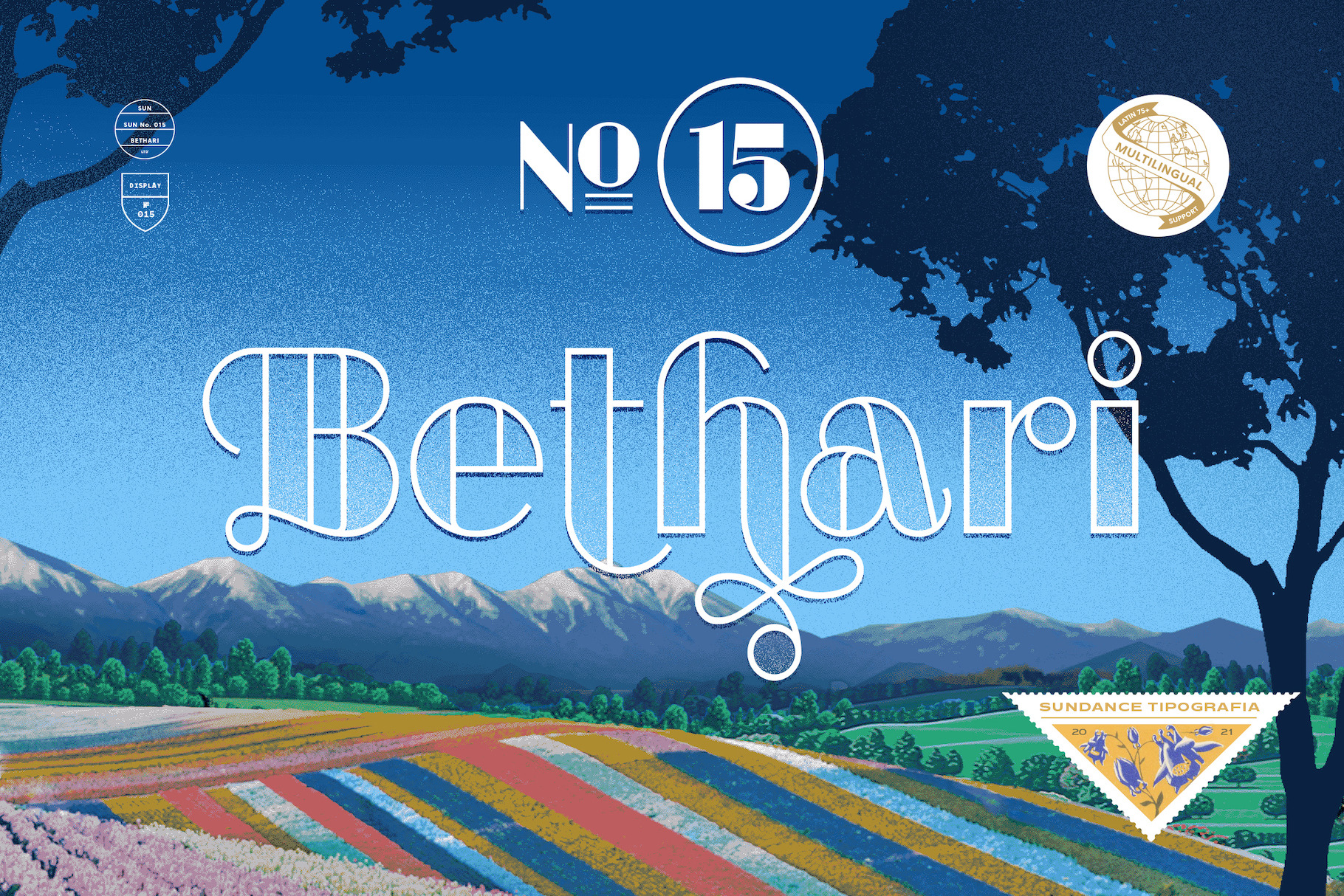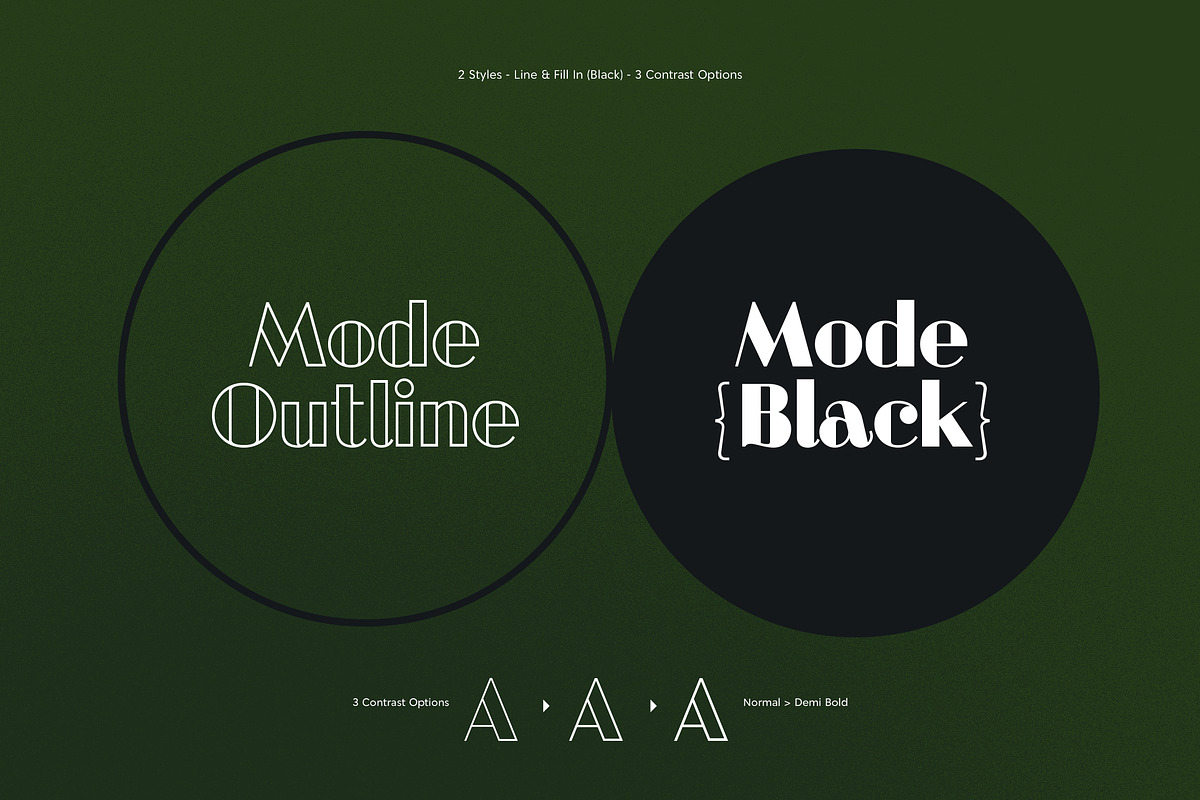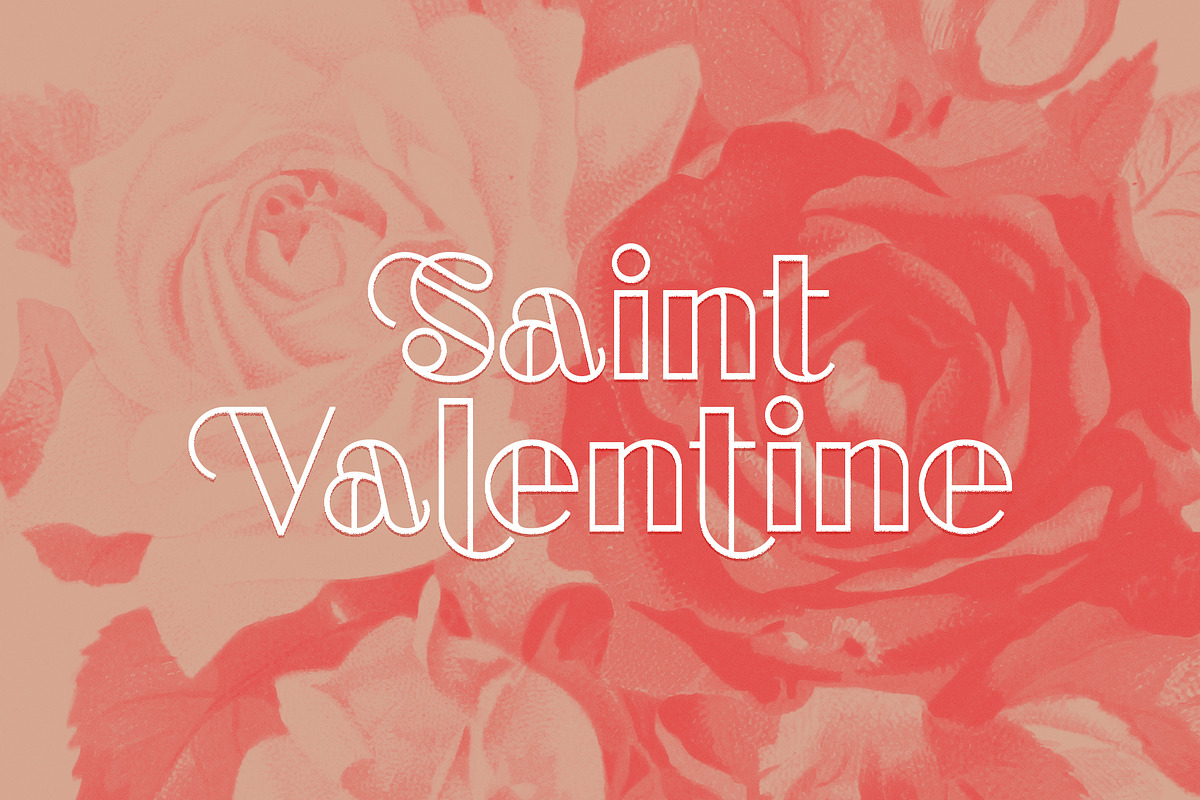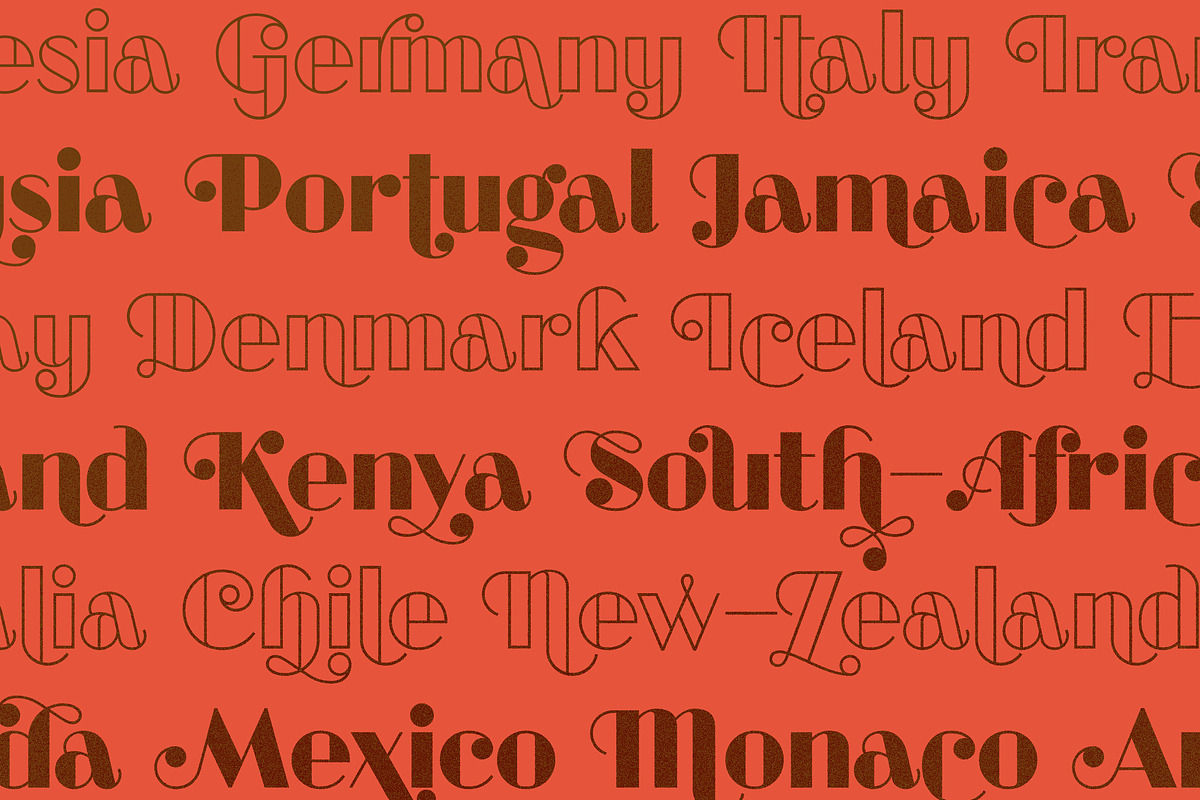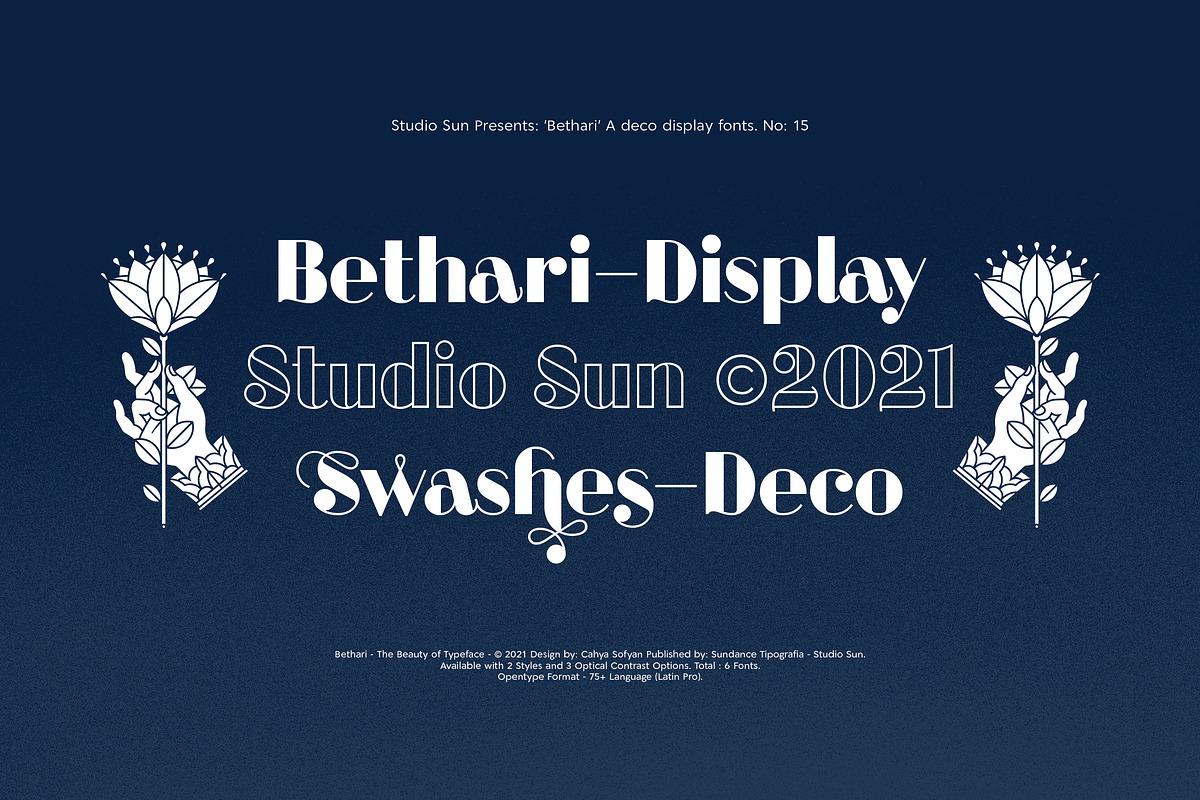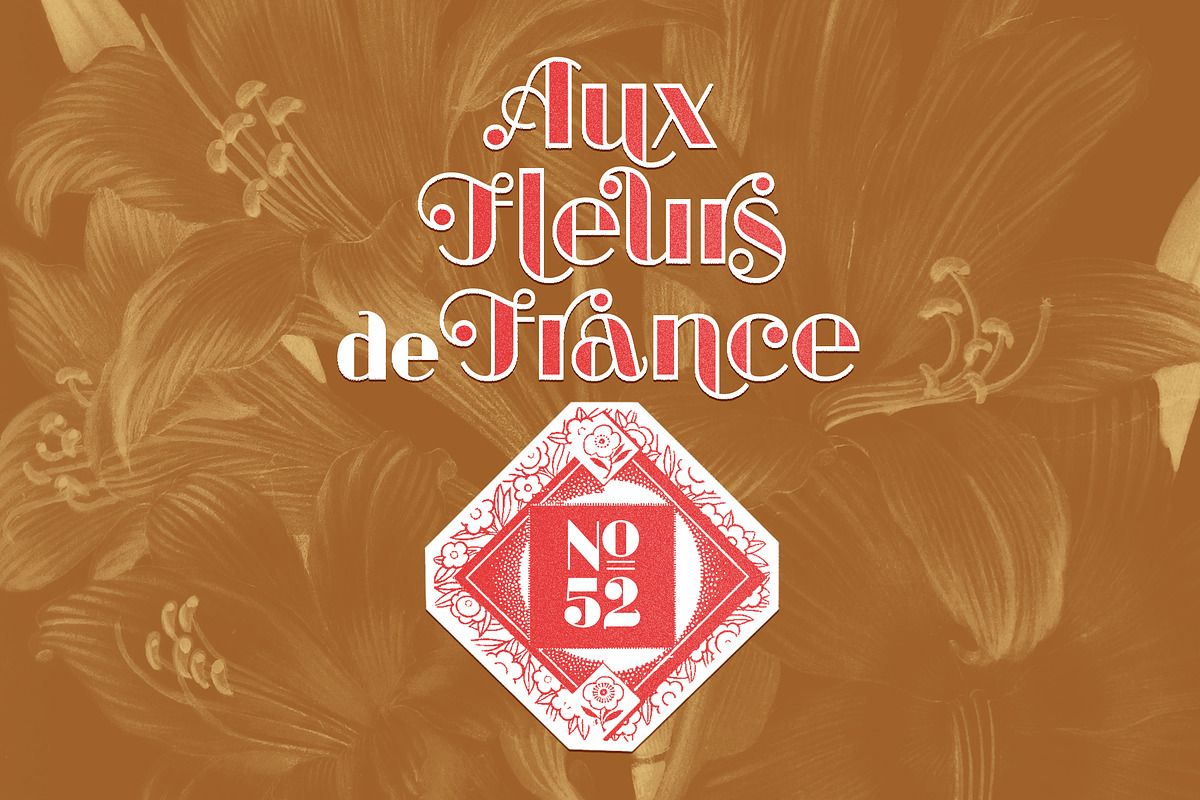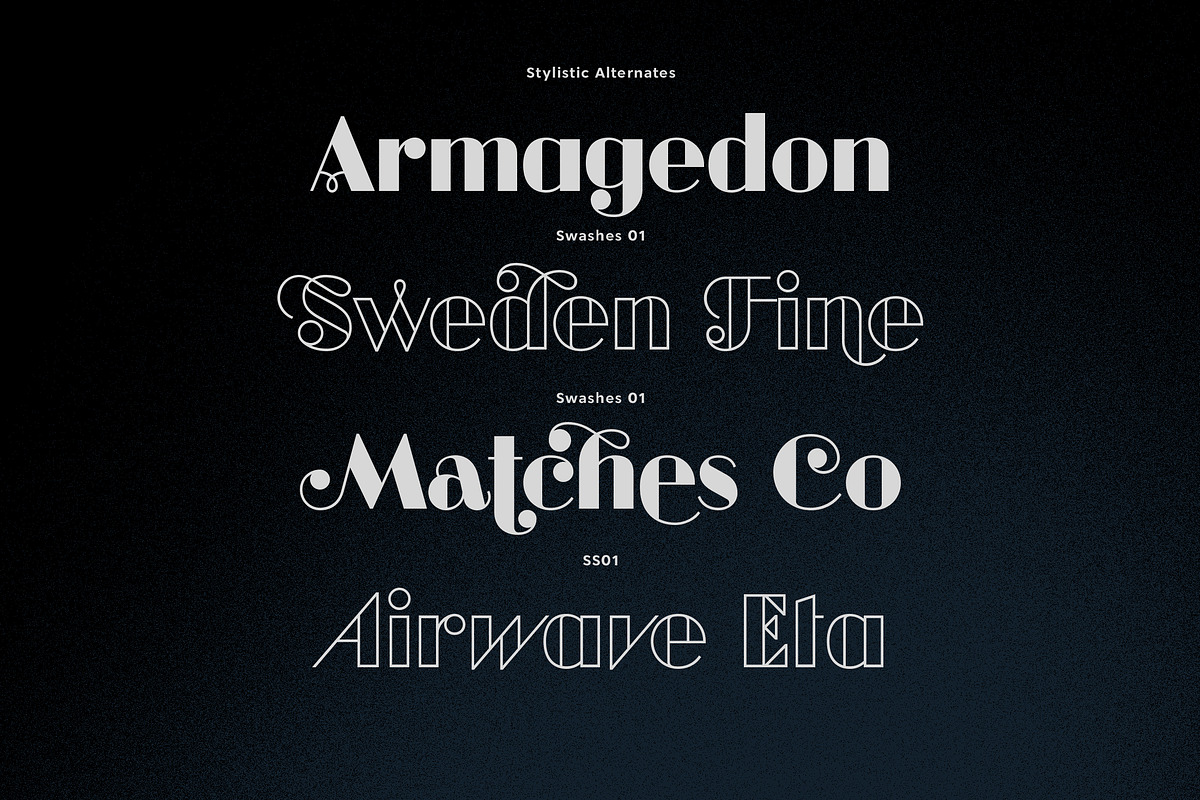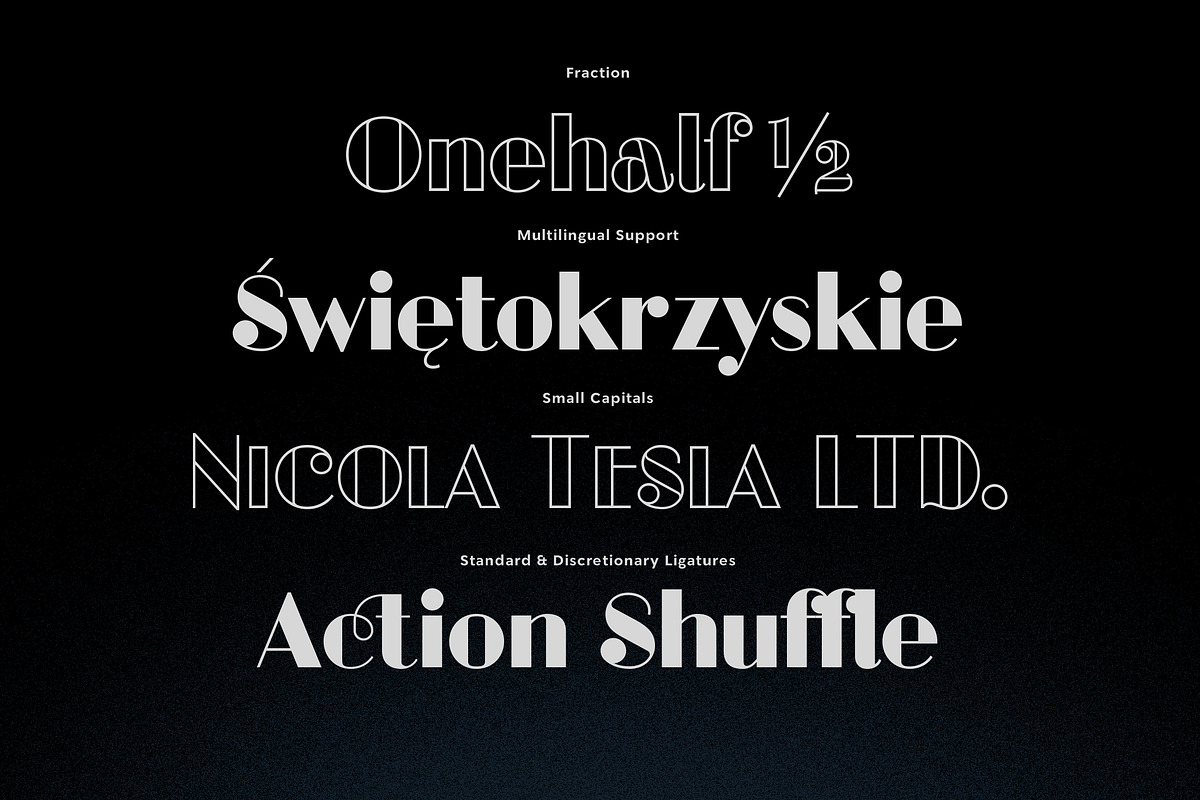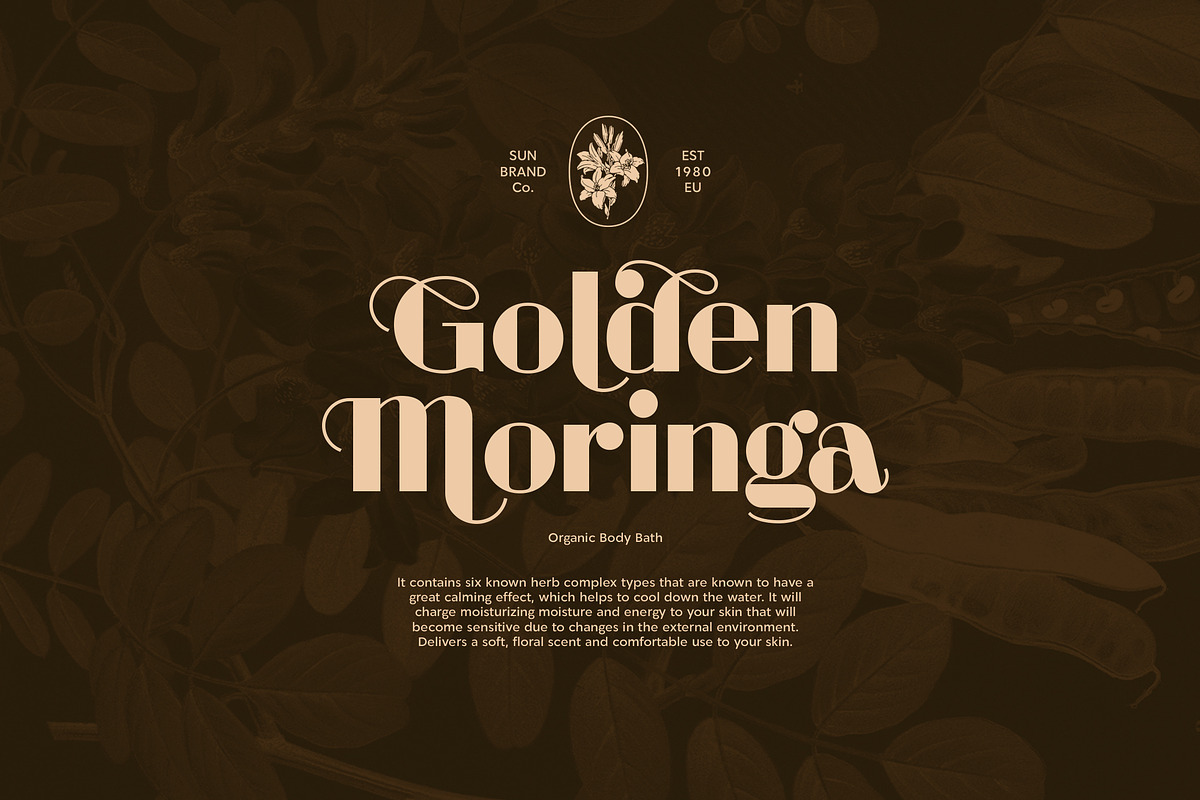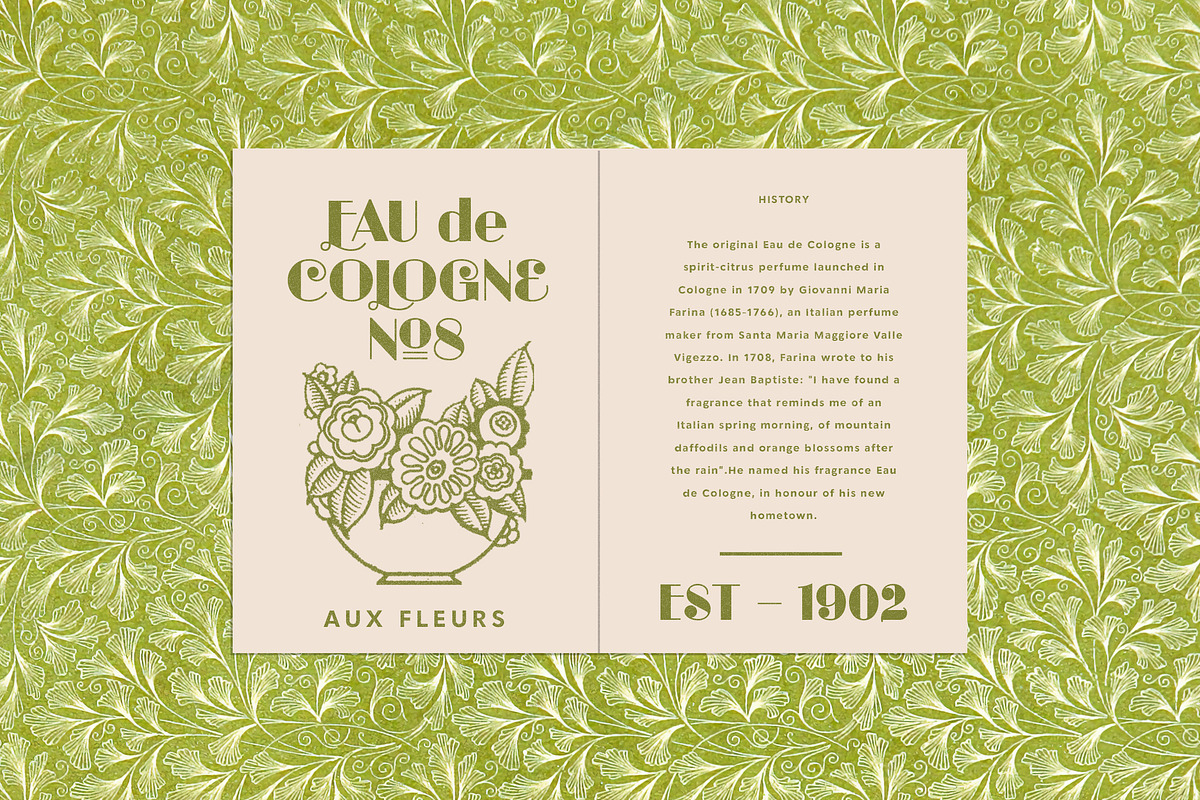
Bethari Font Display is Deco's inspired font with swashes combinations, comes with 2 versions, fill and outlined, also 3 optional optical contrast. The font was created with fully crafted and smooth curve swashes.